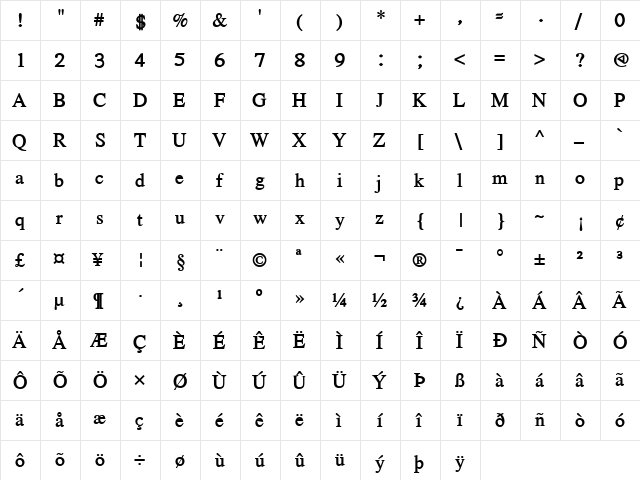
Masinahikan Dene Bold
| Foundry | Chris Harvey (languagegeek.com) |
| Designer | Chris Harvey |
Design Context for Masinahikan Dene Typeface
Masinahikan Dene is a composed and adaptable typeface that performs quietly and consistently across a wide range of design contexts. Its bold stroke weight gives it real presence on the page.